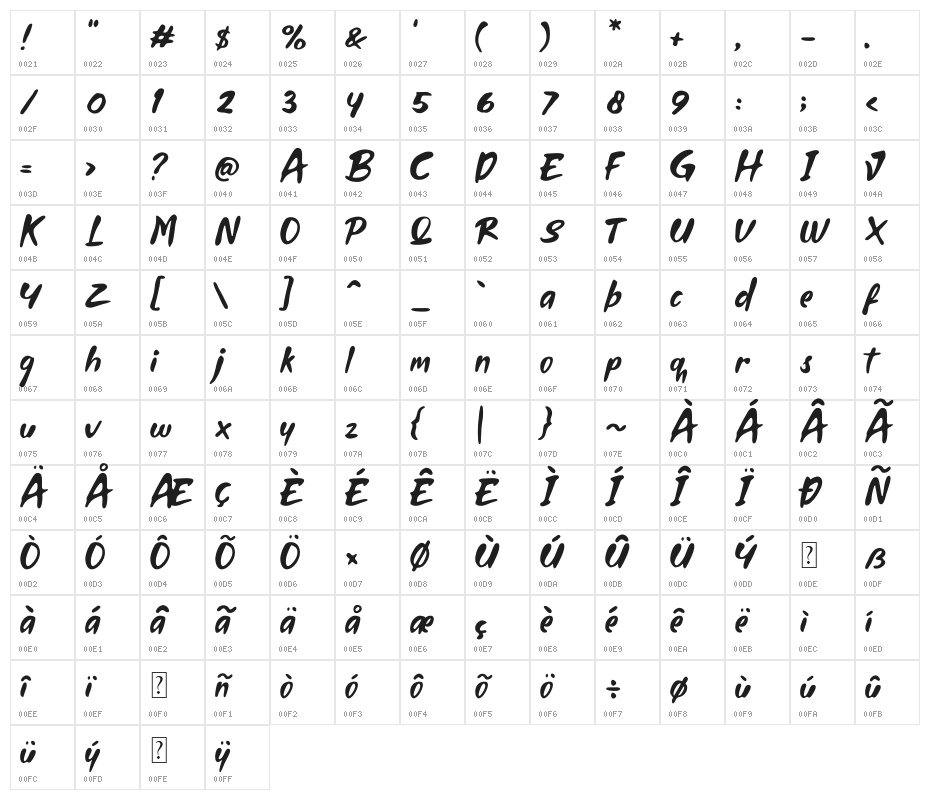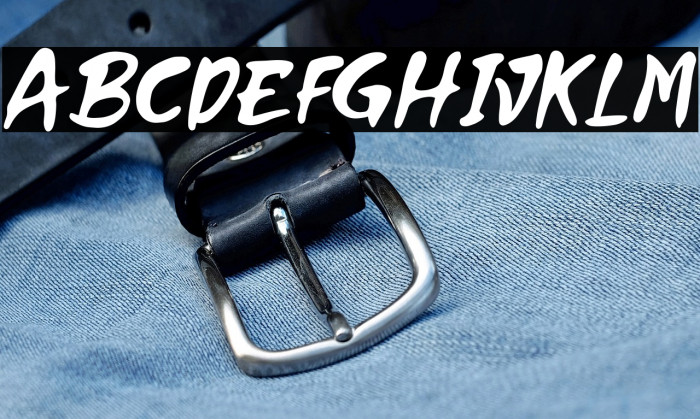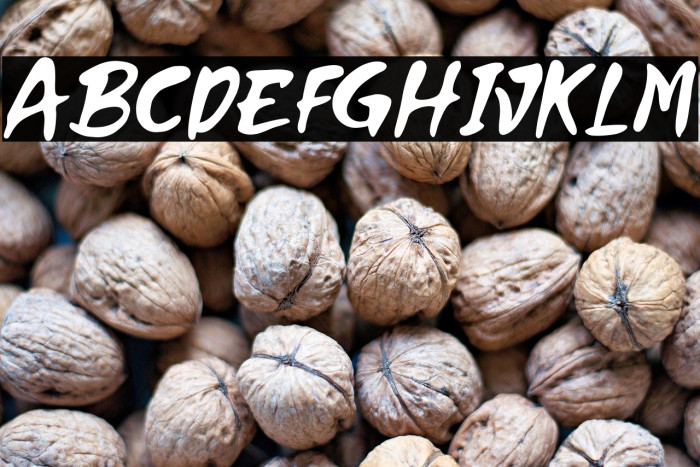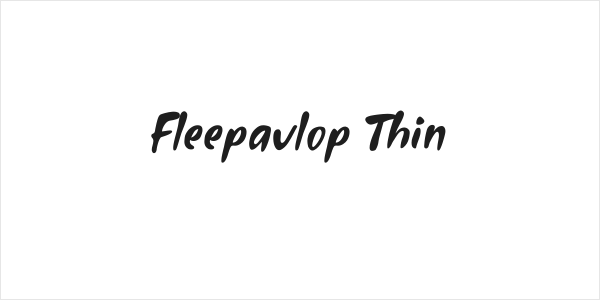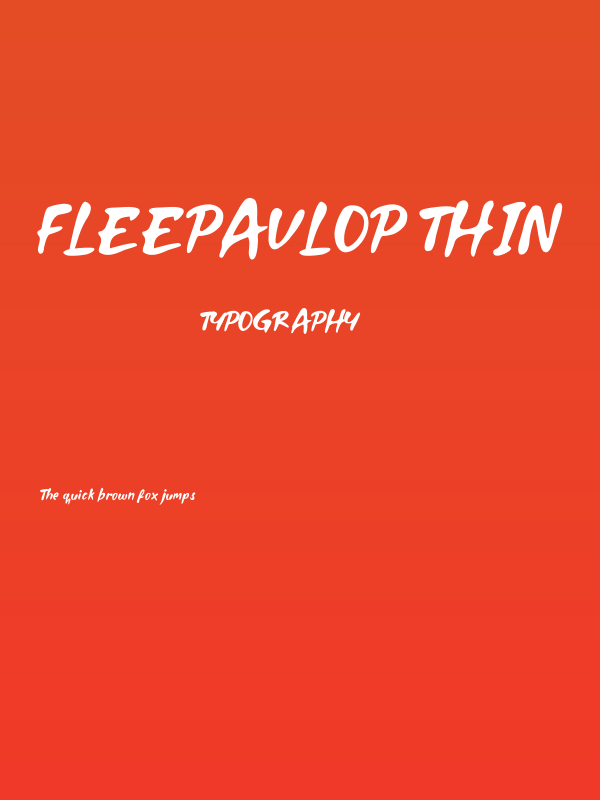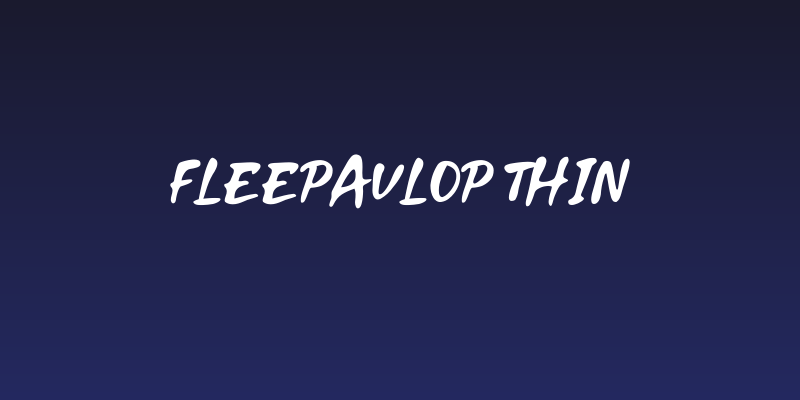
Fleepavlop Thin Font
Fleepavlop Thin Description
This font features a bold, handwritten style with smooth, flowing curves and a playful, energetic appearance. The characters are slightly slanted, giving a dynamic and informal feel. The uppercase letters are bold and prominent, while the lowercase letters maintain a consistent flow, enhancing readability. The numbers and special characters are crafted with the same lively style, making them suitable for creative and expressive designs. The overall aesthetic is casual yet impactful, ideal for projects that require a personal touch.